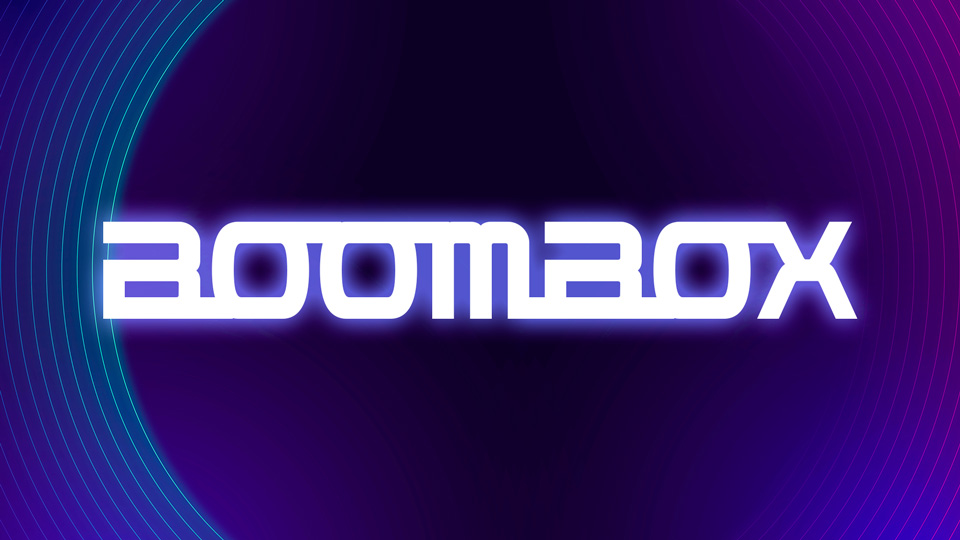
Download Boombox Free font, a bold retro futuristic display typeface for impact headlines and posters. Boombox font includes a lot of alternates to create unique typography.